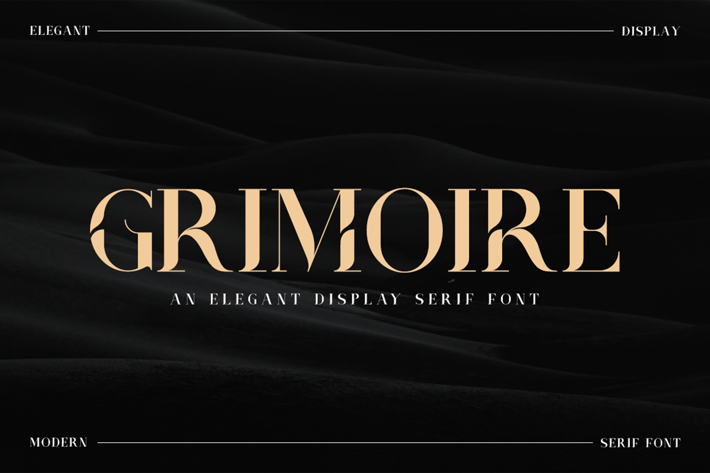
Grimoire - Elegant Fashion Font
Grimoire is a stylish and elegant serif font. Fall in love with its incredibly distinct and timeless style and use it to create spectacular designs!